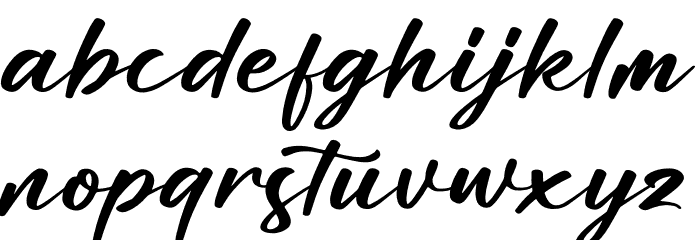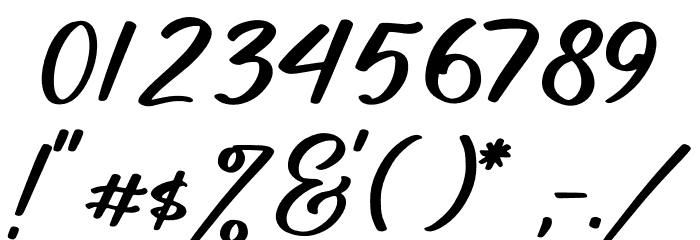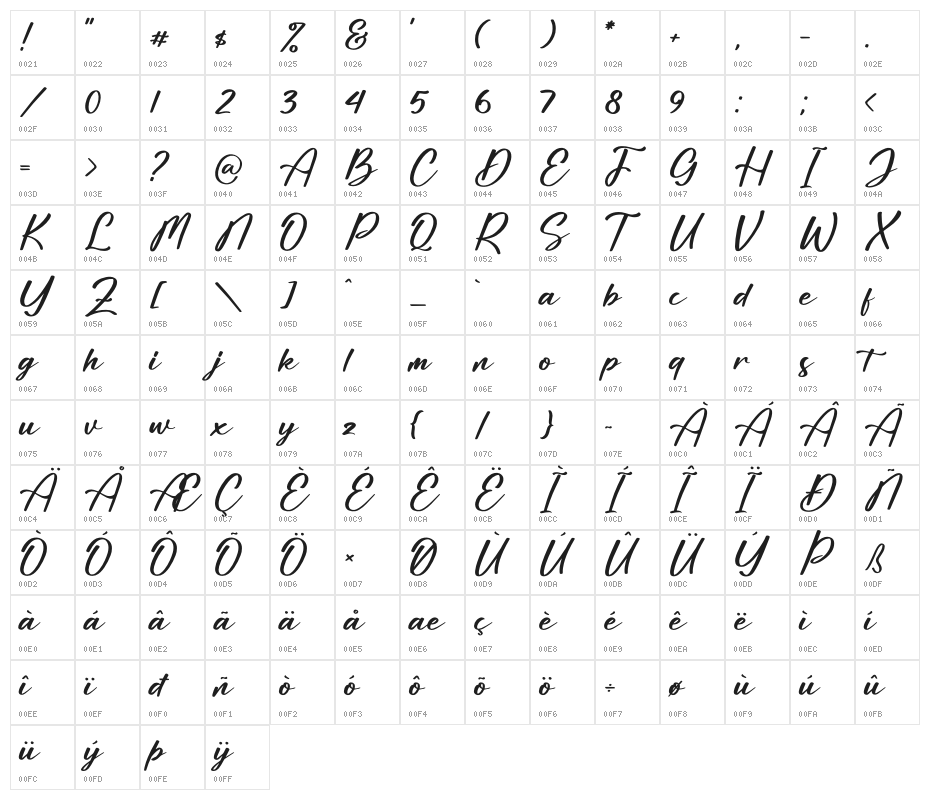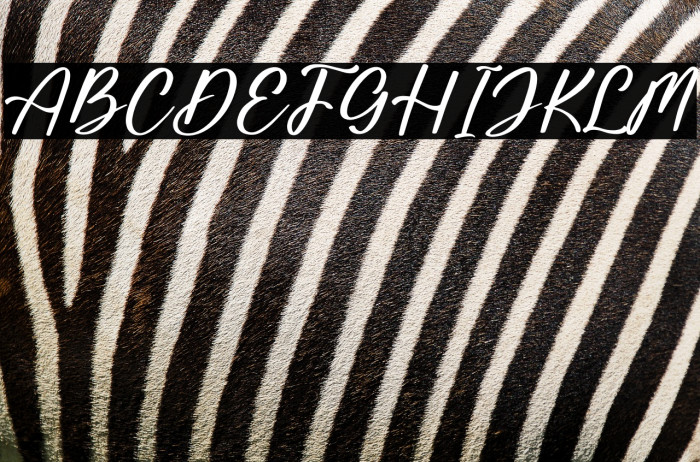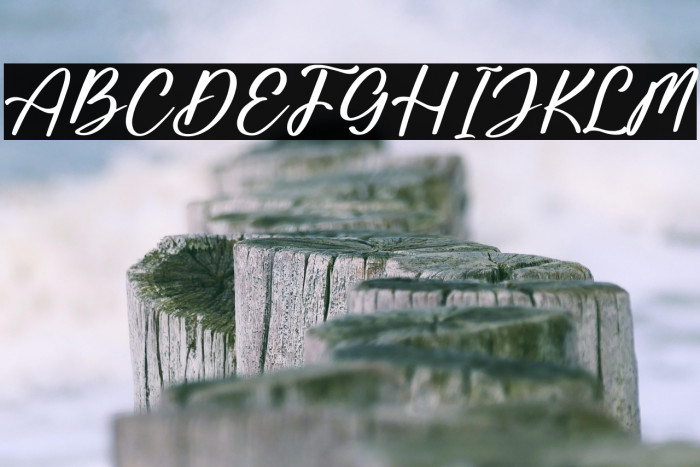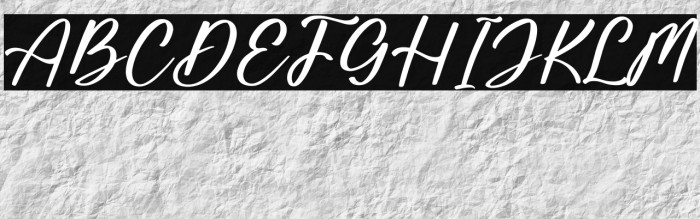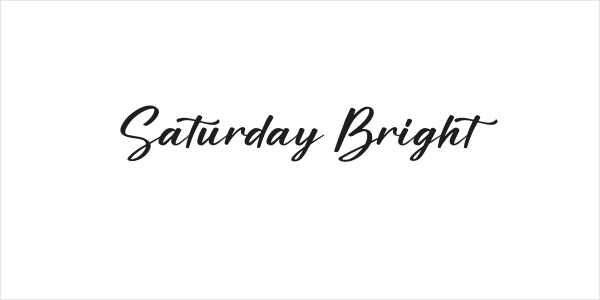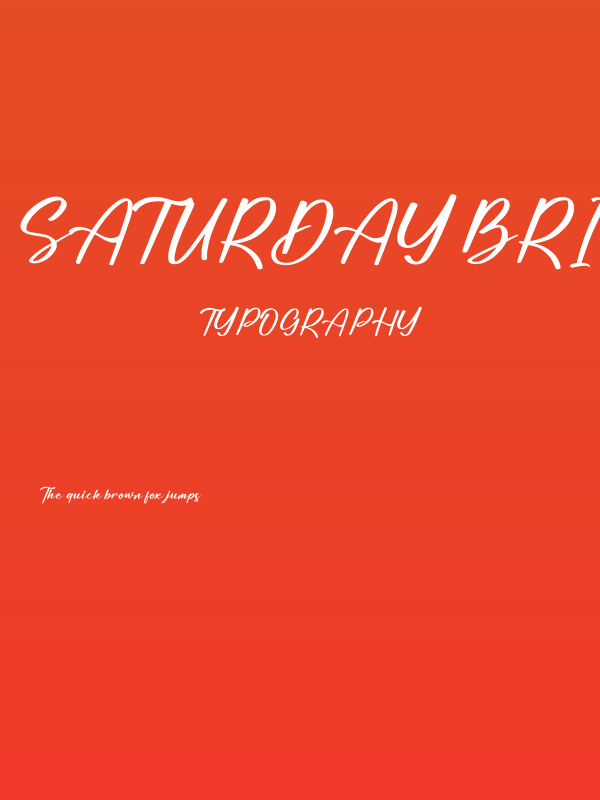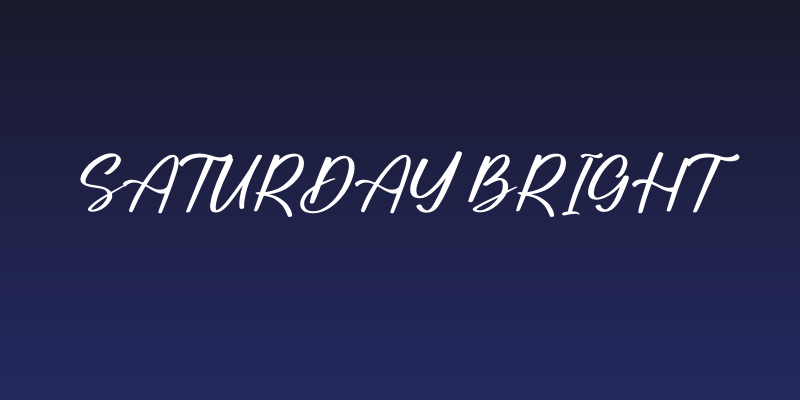
Saturday Bright Font
This font features a lively and dynamic script style with a handwritten feel. The characters are fluid and connected, giving a sense of motion and elegance. The uppercase letters are bold and slightly slanted, while the lowercase letters maintain a consistent flow with smooth curves and loops. Numbers and special characters are designed to match the overall aesthetic, providing a cohesive look. The font's playful yet sophisticated appearance makes it suitable for various creative applications.
A lively, handwritten script font with fluid, connected characters.
- Font: Saturday Bright
- Proposed Projects: Ideal for wedding invitations, greeting cards, branding, and social media graphics.
- Category: Script
- Use Case: Logos, Headlines, Invitations